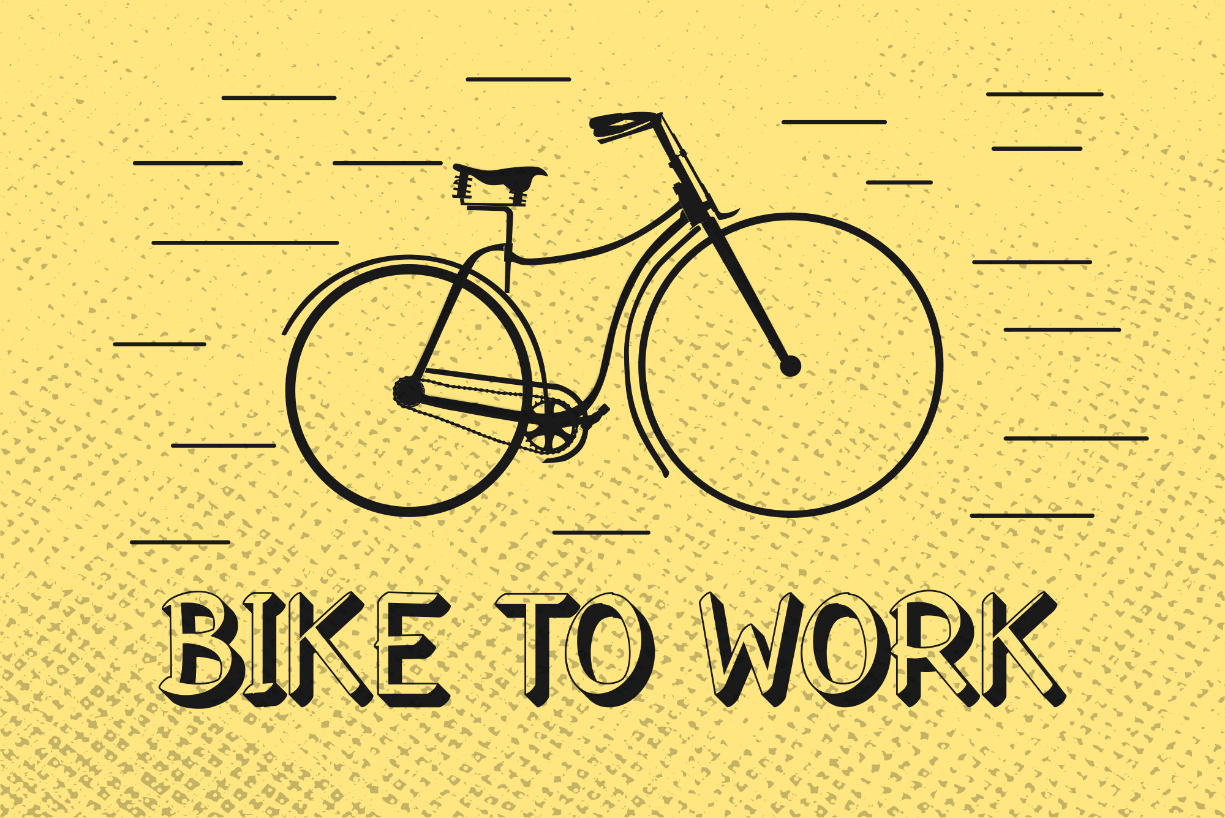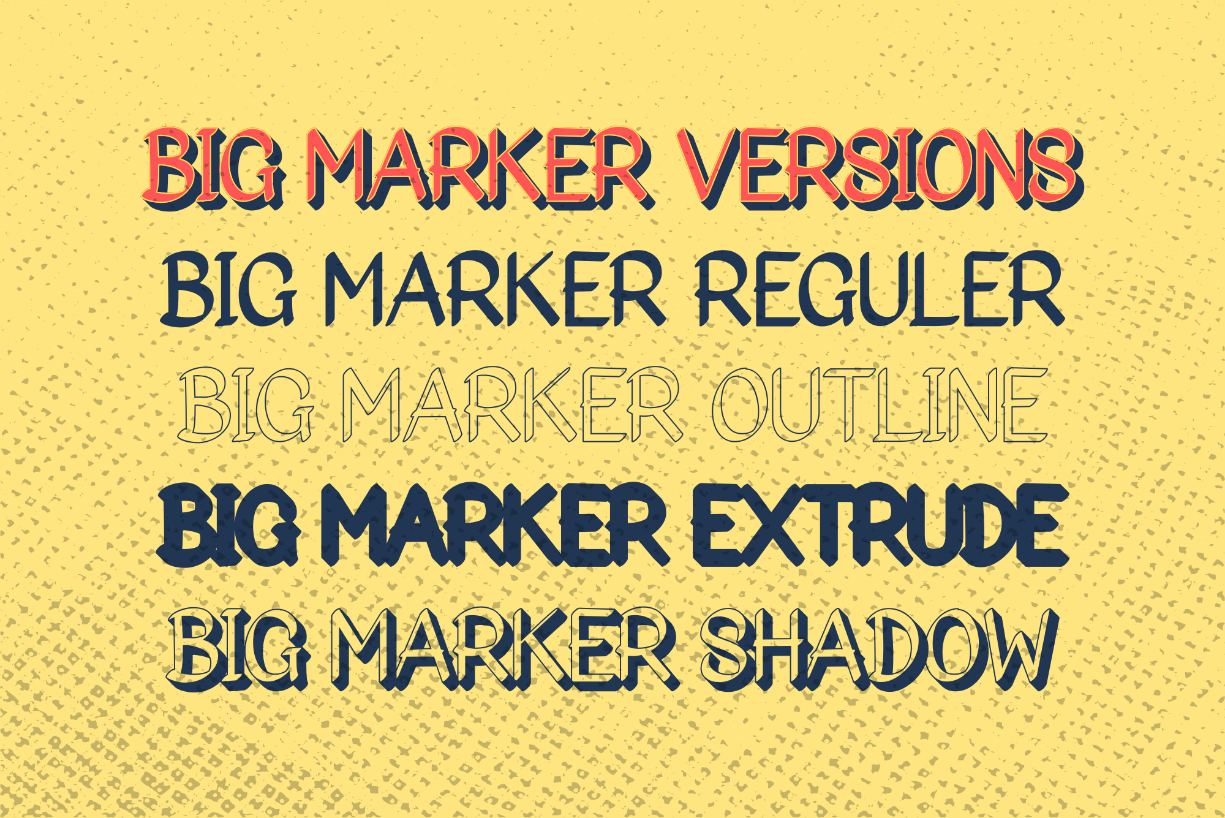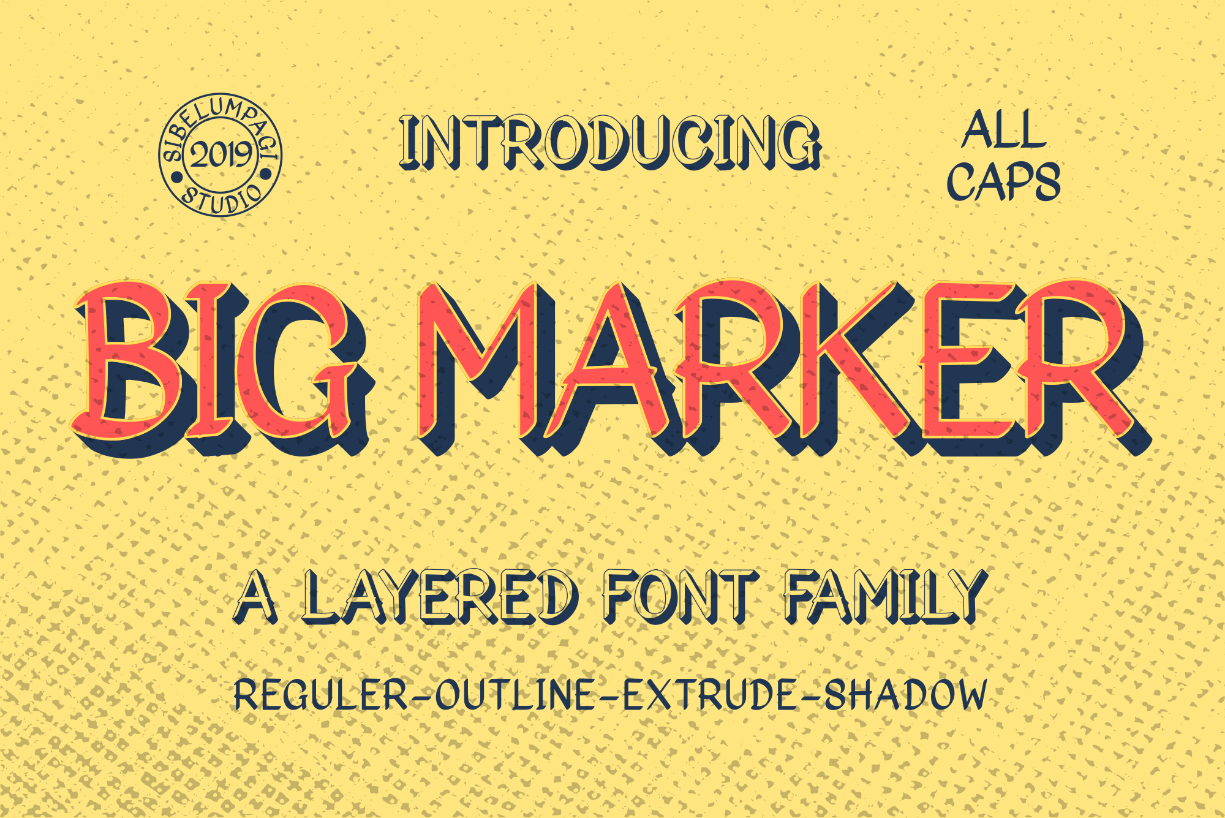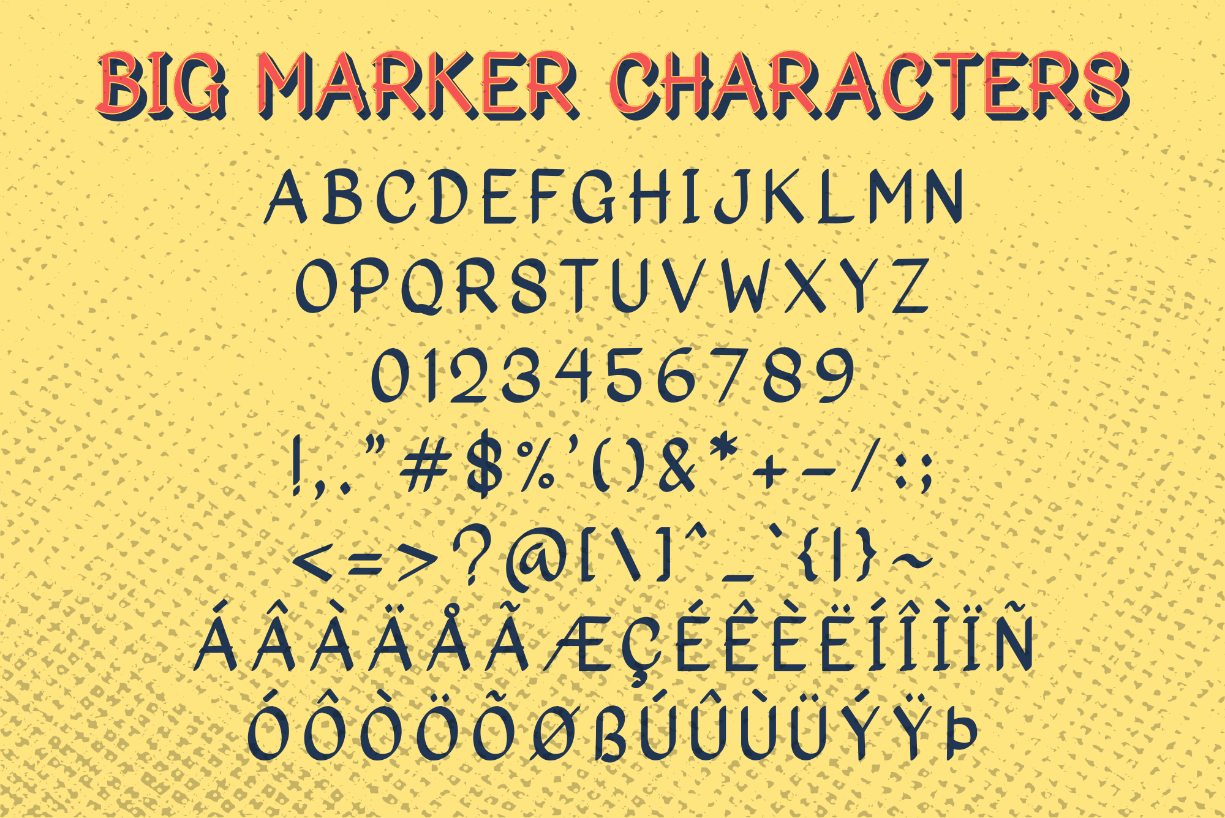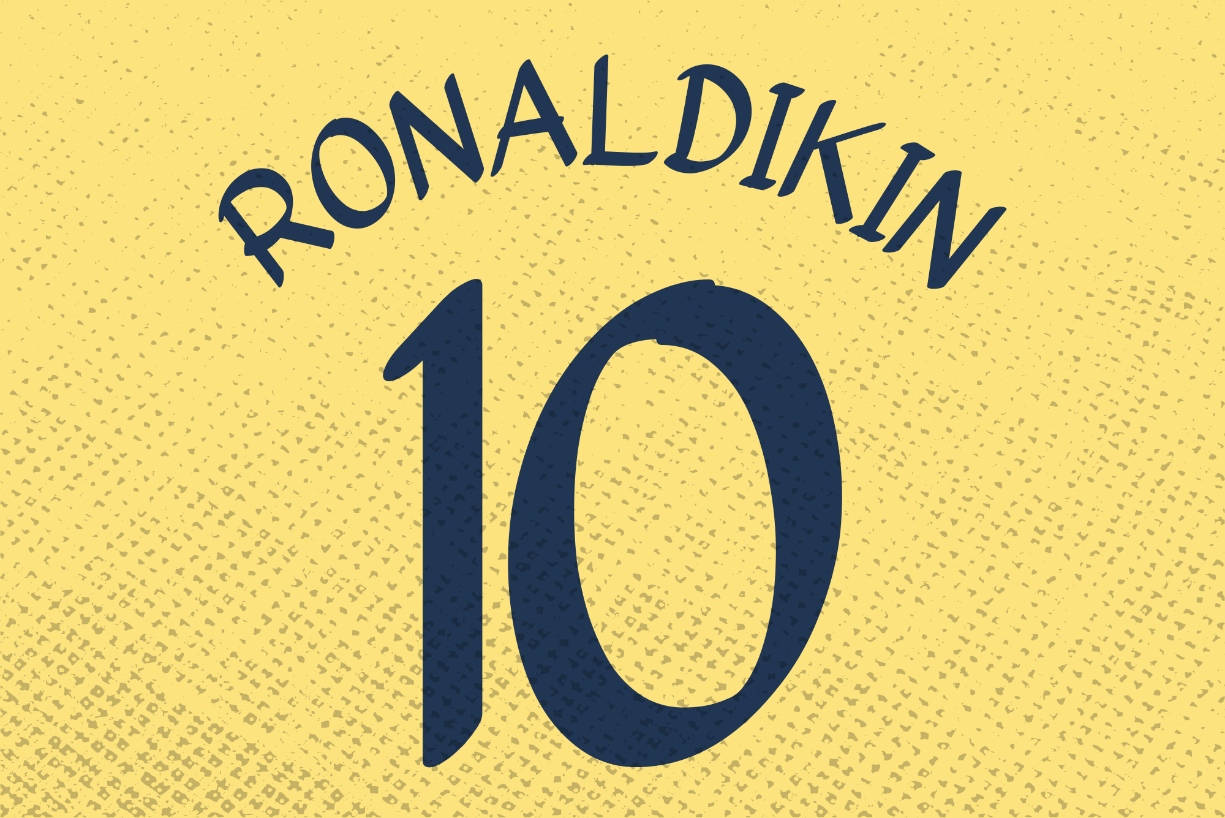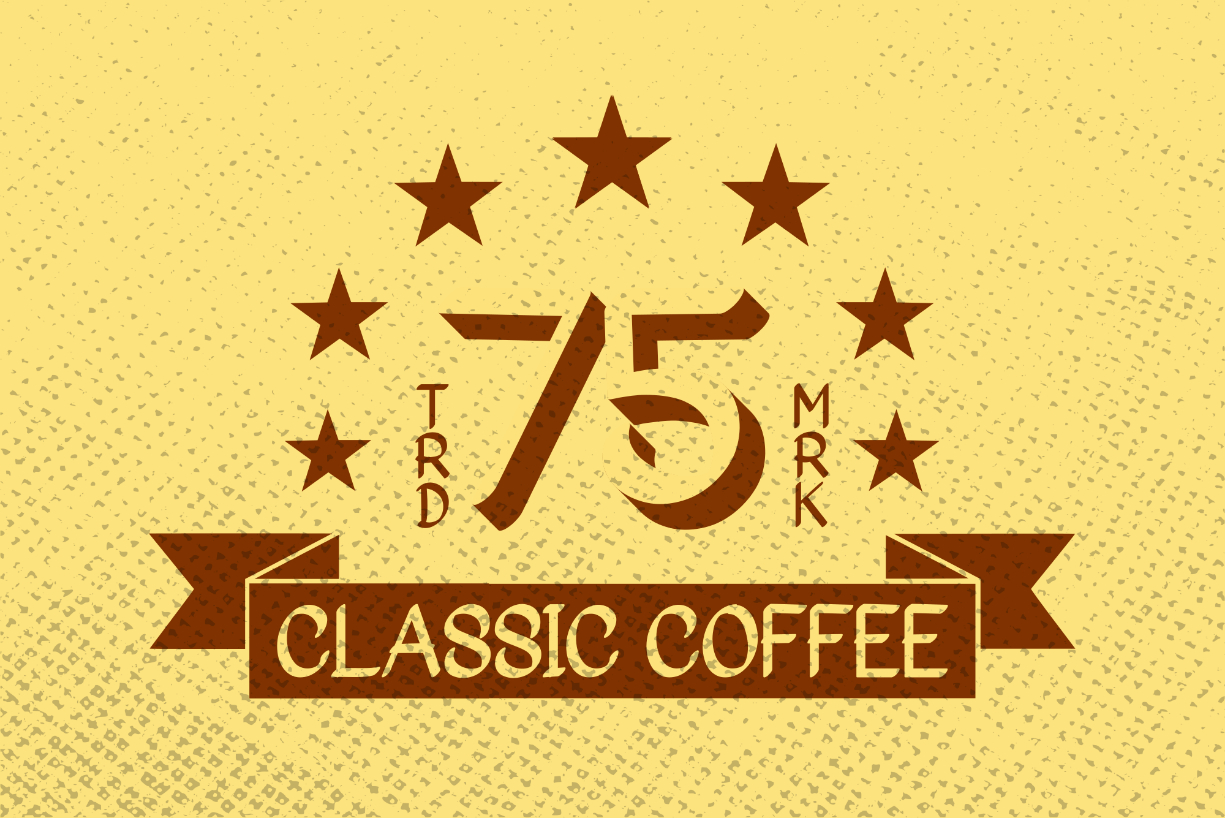
Big Marker Family Font
About Big Marker Family Font
The Big Marker is a layered font family. It comes in four variations with a vintage style and classic looks.
It can be used for logos, t-shirts, pamphlets, billboards, and much more.